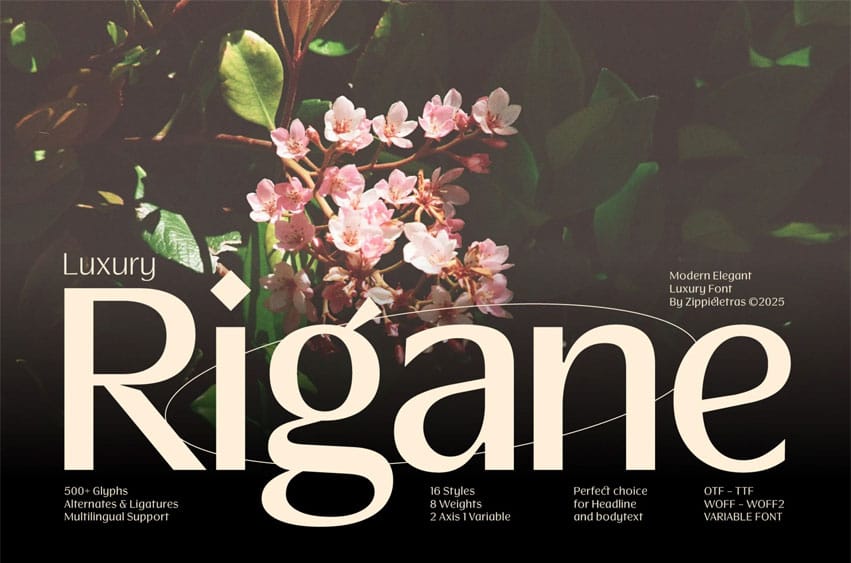
Luxury Rigane Font is a luxury, elegant, high-contrast sans serif crafted for brands that demand both sophistication and versatility. Designed for display and text, it combines refined proportions with modern clarity and classy, making it equally stunning in brand identities, signage systems, editorial layouts, websites, and bold headlines.
Its most distinctive features are the graceful letterforms of “a” and “g”, shaped to exude elegance, prestige, and exclusivity. Activate Stylistic Set 01 (SS01) to transform a, g, and y into even smoother, more luxurious forms — ideal for logos, high-end branding, elegant posters, or web headlines that need a premium touch. The typeface also comes with a wide range of smooth ligatures that elevate typography into a design statement.
With 16 styles — 8 weights from Thin to Black, each with matching Italics — plus OTF, TTF, WOFF, WOFF2, and Variable Font formats, Luxury Rigane is ready for every platform, from large-format signage to responsive web design. It supports Basic Latin and Extended Latin, making it a versatile choice for worldwide branding.
Personality “Luxury Rigane” – a refined sans serif with high contrast, smooth ligatures, and timeless elegance.
Feels like: *Fashion magazines and high-end editorials *Glamour hotel branding and luxury retail *Premium product packaging *Elegant signage and architectural lettering *Exclusive event campaigns and upscale web typography
Best For: *Luxury branding & logo design *Editorial & magazine layouts *Elegant websites & UI typography *Premium product packaging & labels *Signage & large-format displays *Animated headlines for campaigns & social media